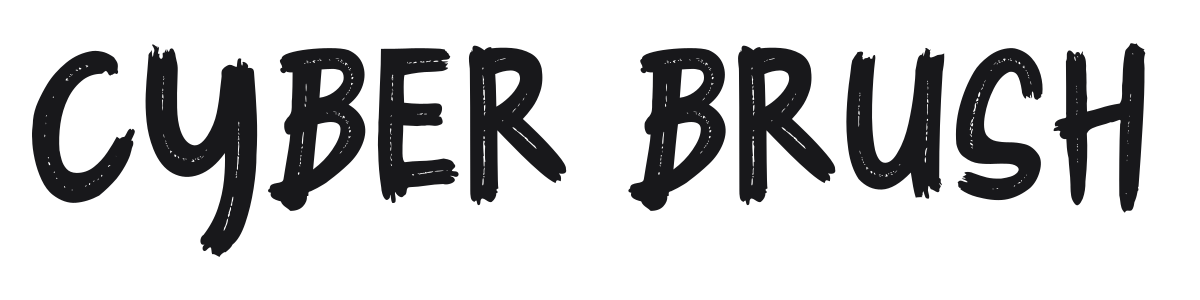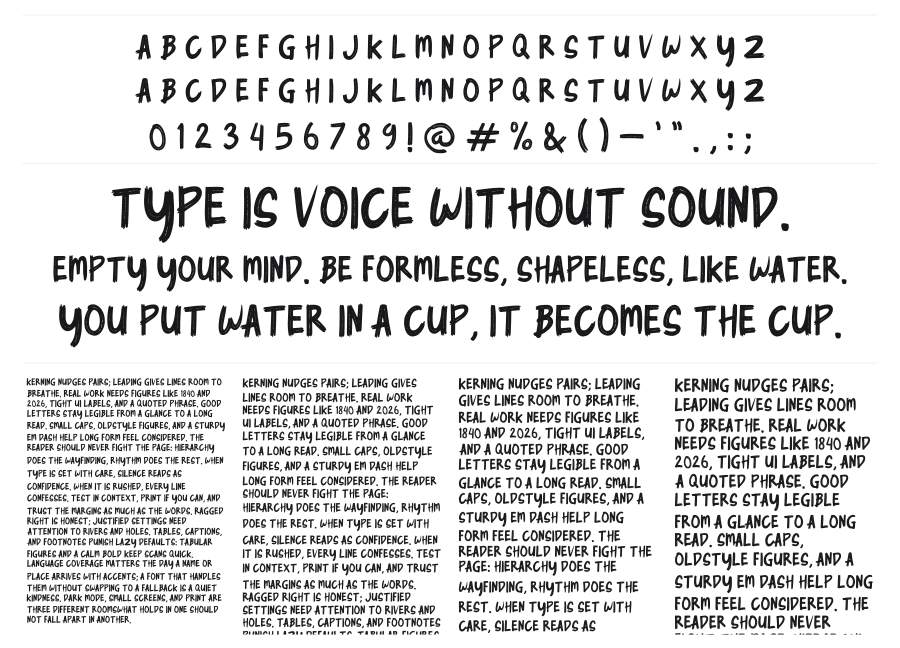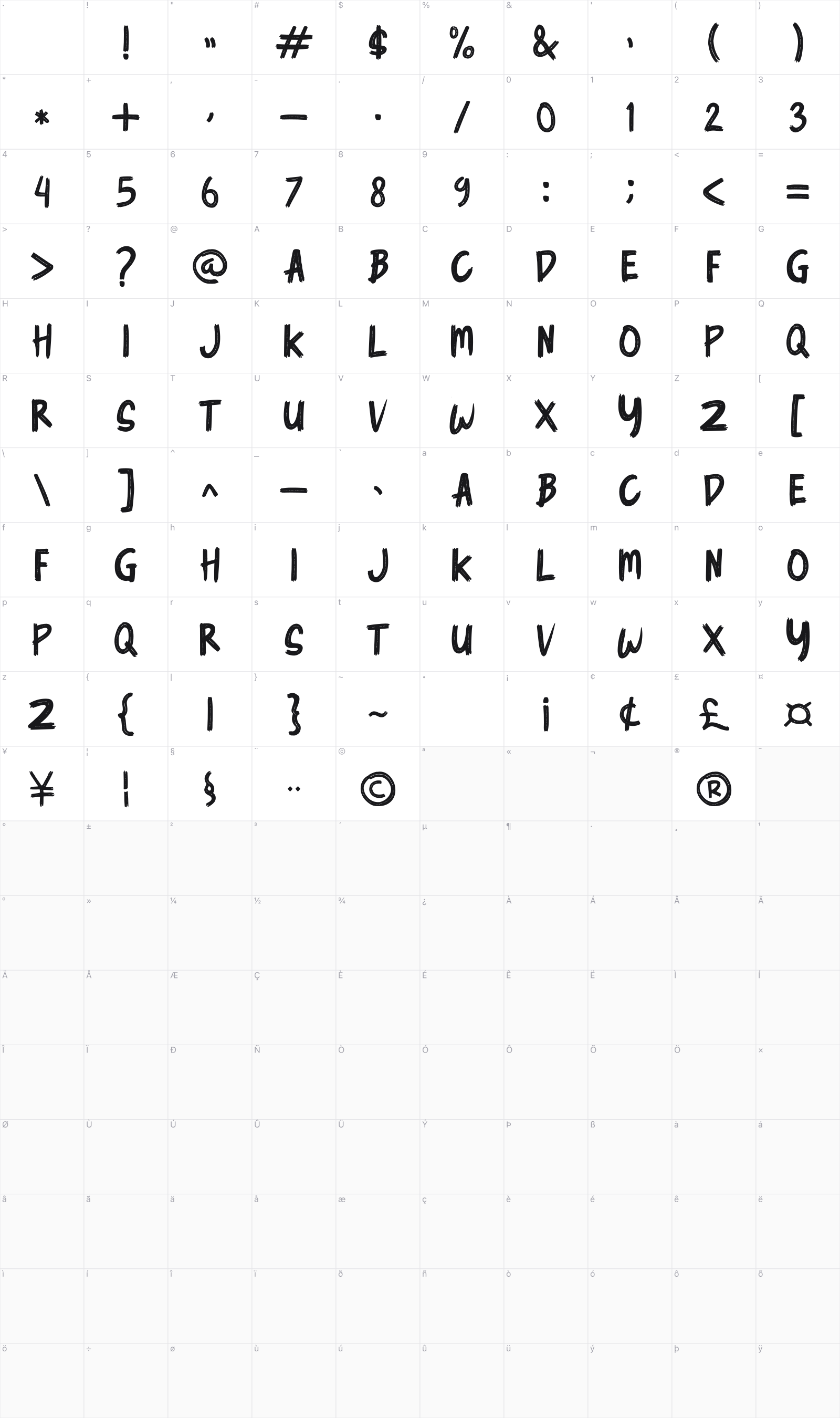
Cyber Brush
Cyber Brush is a heavy hand-painted brush font with rough, bristle-textured strokes and bold character. The dry-brush breakup along every edge gives it a raw, street-art energy that feels genuinely handmade rather than digitally smooth. Strong in posters, apparel graphics, and anywhere that needs visible human grit.